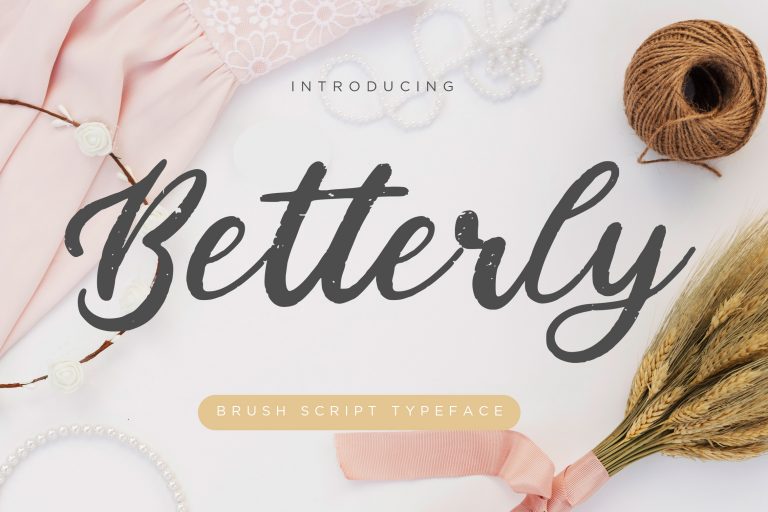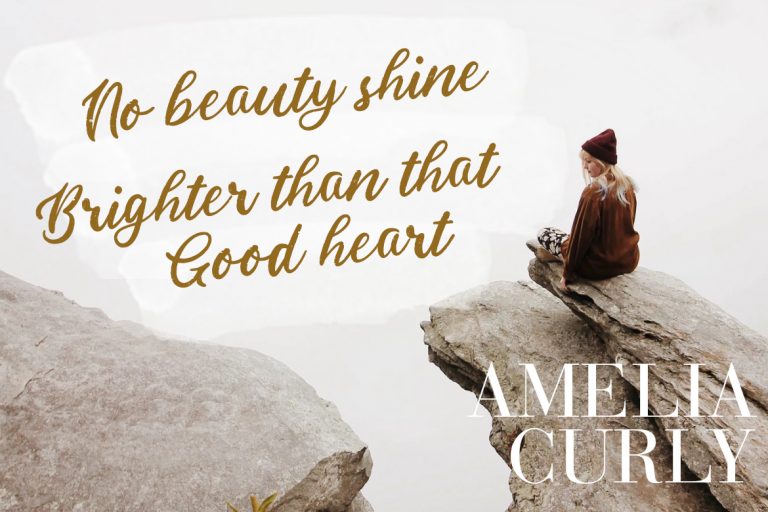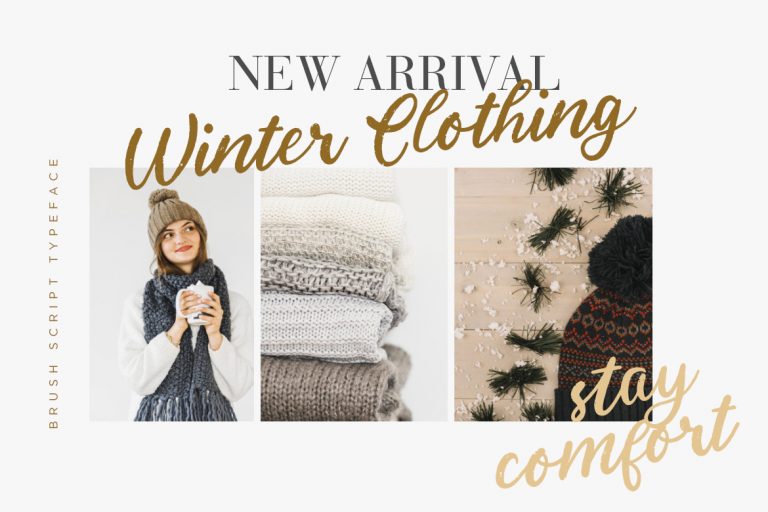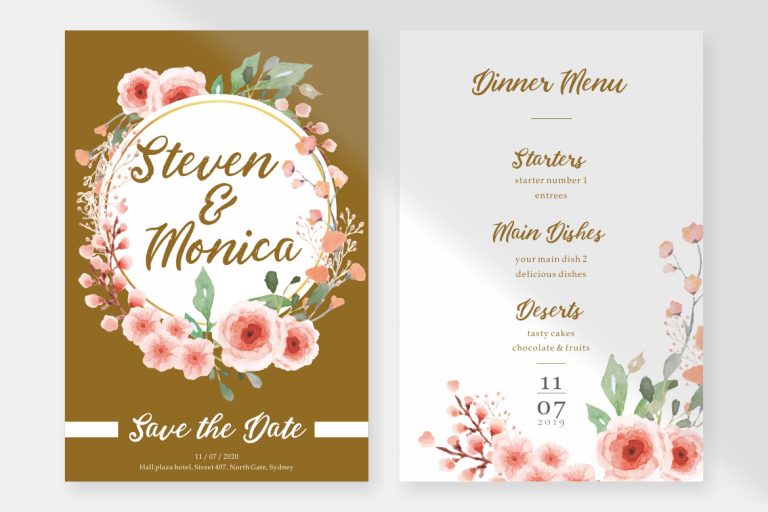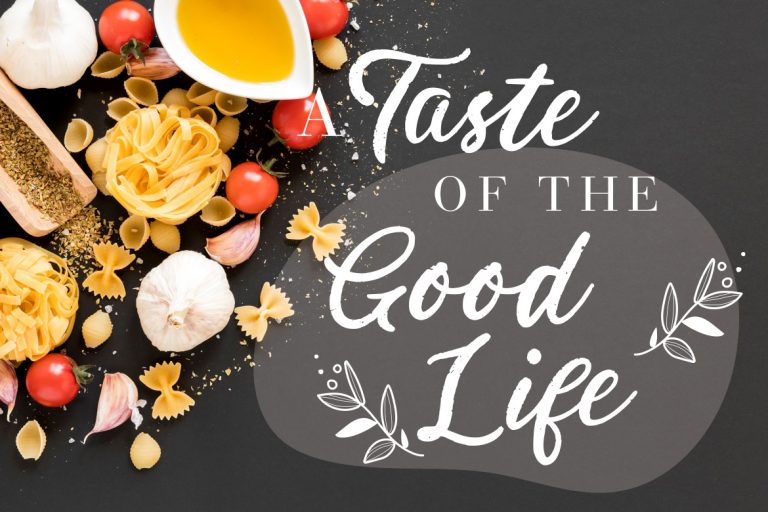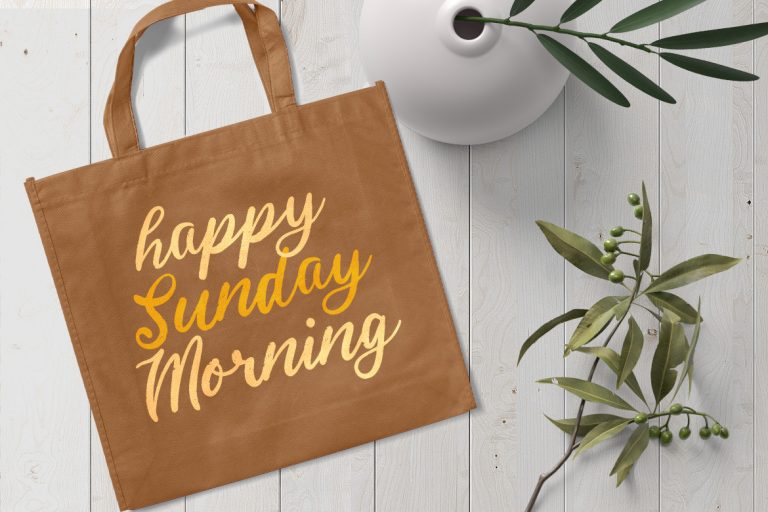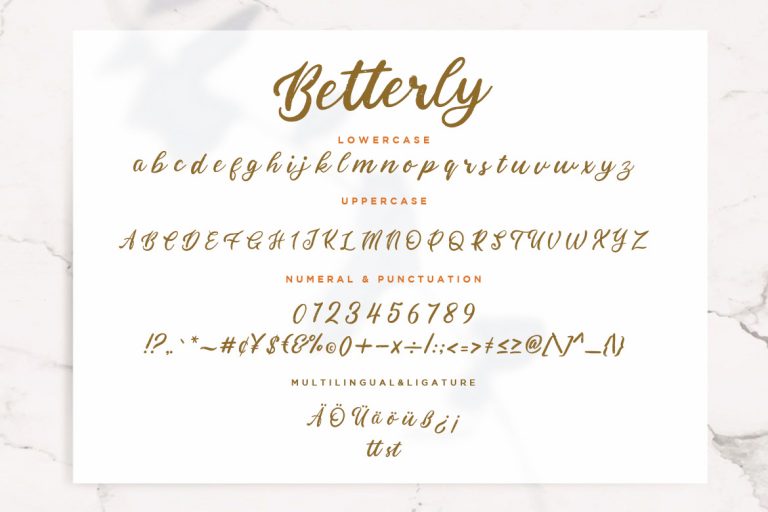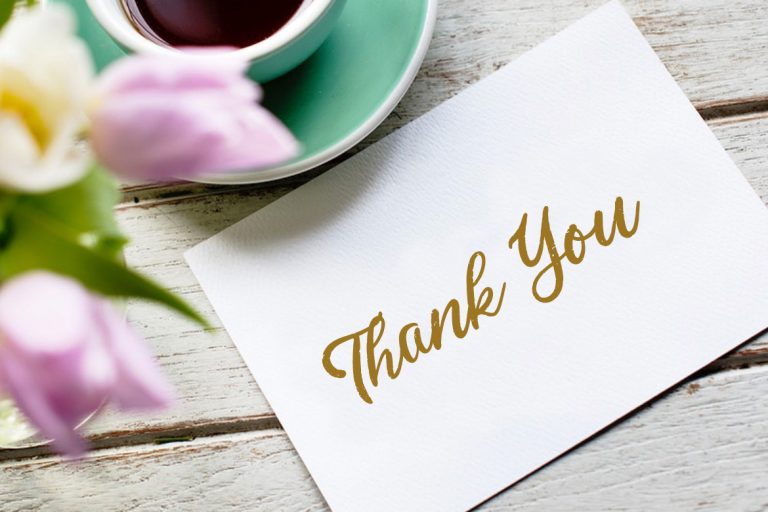
Betterly is brush script with authentic dry brush make looks elegant and modern.
Betterly is perfect for branding projects, logo, wedding designs, social media posts, advertisements, product packaging, product designs, label, photography, watermark, invitation, stationery and any projects that need handwriting taste.
- Standard glyphs
- Ligature
- Fonts include multilingual support for; ä ö ü Ä Ö Ü ß ¿ ¡
Betterly Brush Script